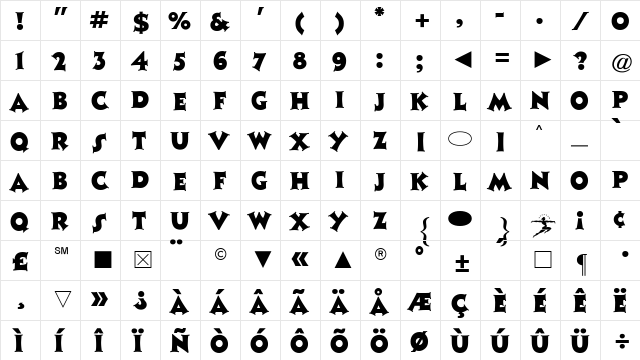
CgAshleyCrawford Medium
Design Context for CgAshleyCrawford Typeface
CgAshleyCrawford is a composed and adaptable typeface that performs quietly and consistently across a wide range of design contexts.